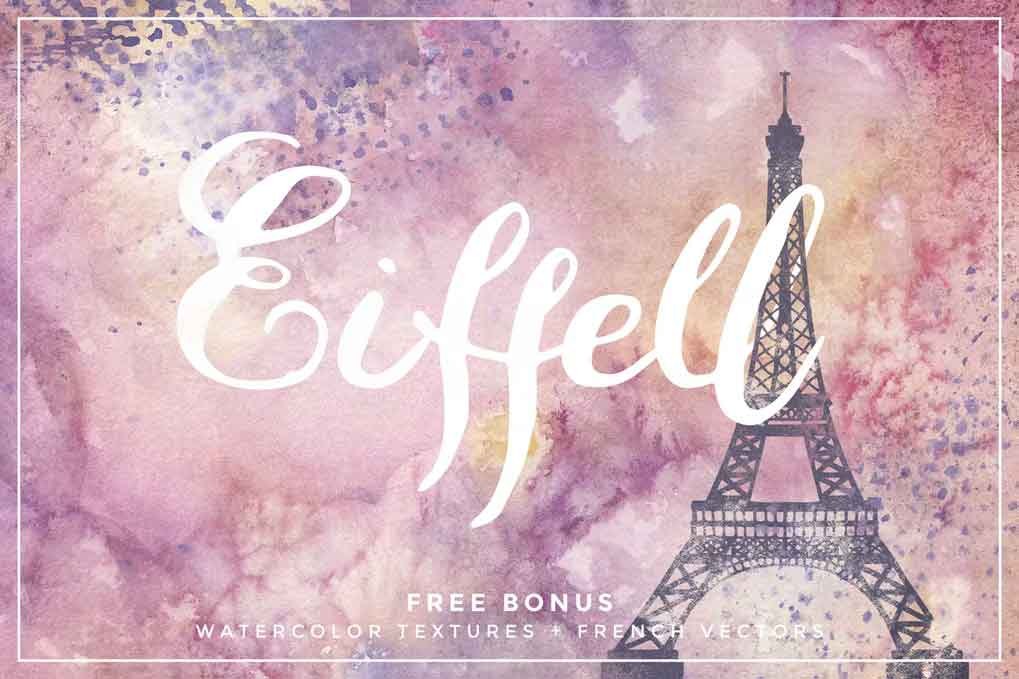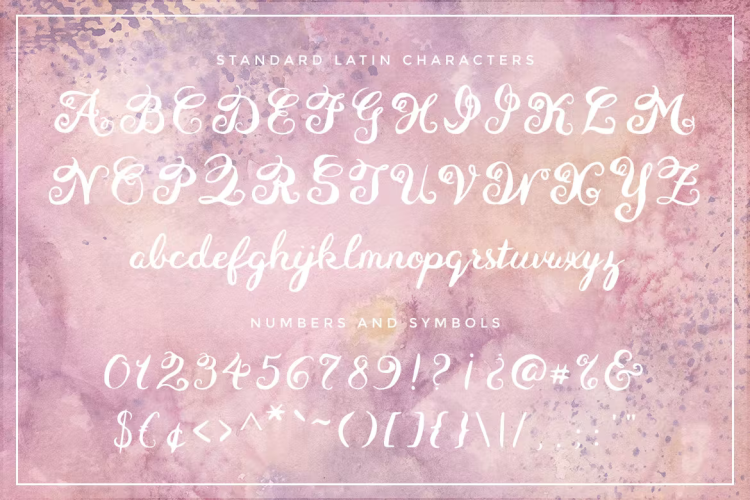
Eiffell Brush Script Font
Eiffell is a gorgeous, hand brushed, and unique typeface with French charm. With stunningly decorative capitals, it’s perfect for logos, posters, typographic designs, an…
Eiffell is a gorgeous, hand brushed, and unique typeface with French charm. With stunningly decorative capitals, it’s perfect for logos, posters, typographic designs, and much more.
A flexible look helps Eiffell feel right at home in soft, feminine projects, or when used for old-world, hand scripted designs.
Where Eiffell Brush Script Font works best
Eiffell Brush Script Font brings a personal, handwritten warmth to invitations, menus and place cards.
Craft brands — coffee, cosmetics, bakery — use scripts like Eiffell Brush Script Font for signature-style logos and labels.
Pair Eiffell Brush Script Font with a plain sans for quotes, stories and Pinterest pins that feel handmade.
What is Eiffell Brush Script Font good for?
Eiffell Brush Script Font is a Script And Handwritten typeface tagged Branding, Brush, Decorative, Poster. It works well for headlines, logos, posters, social media graphics and branding projects that need a distinctive script and handwritten look.